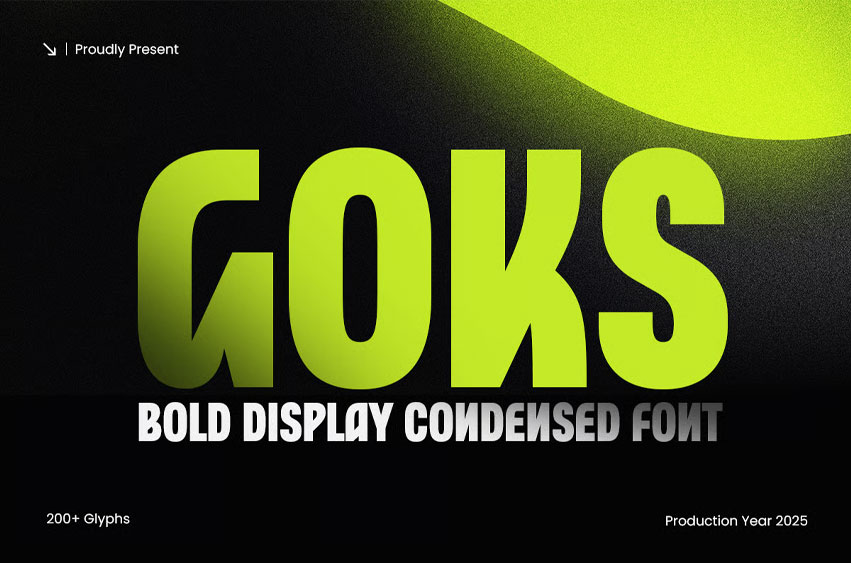
Goks Font is a bold display condensed font crafted to make your branding and headlines stand out. Its strong, compact letterforms deliver maximum impact while maintaining readability, perfect for posters, logos, packaging, and digital projects.
With clean lines and a modern, condensed style, GOKS adds a powerful and professional touch to any visual identity, ideal for brands and creatives seeking bold, eye-catching typography.
GOKS – Bold Display Condensed Font Features
- Bold and impactful condensed character set
- Available with Regular and Italic versions
- Perfect for branding, headlines, and display use
- Uppercase, lowercase, numerals, and punctuation included
- OpenType features for extra versatility
Make a bold impression with GOKS – the ultimate condensed display font!